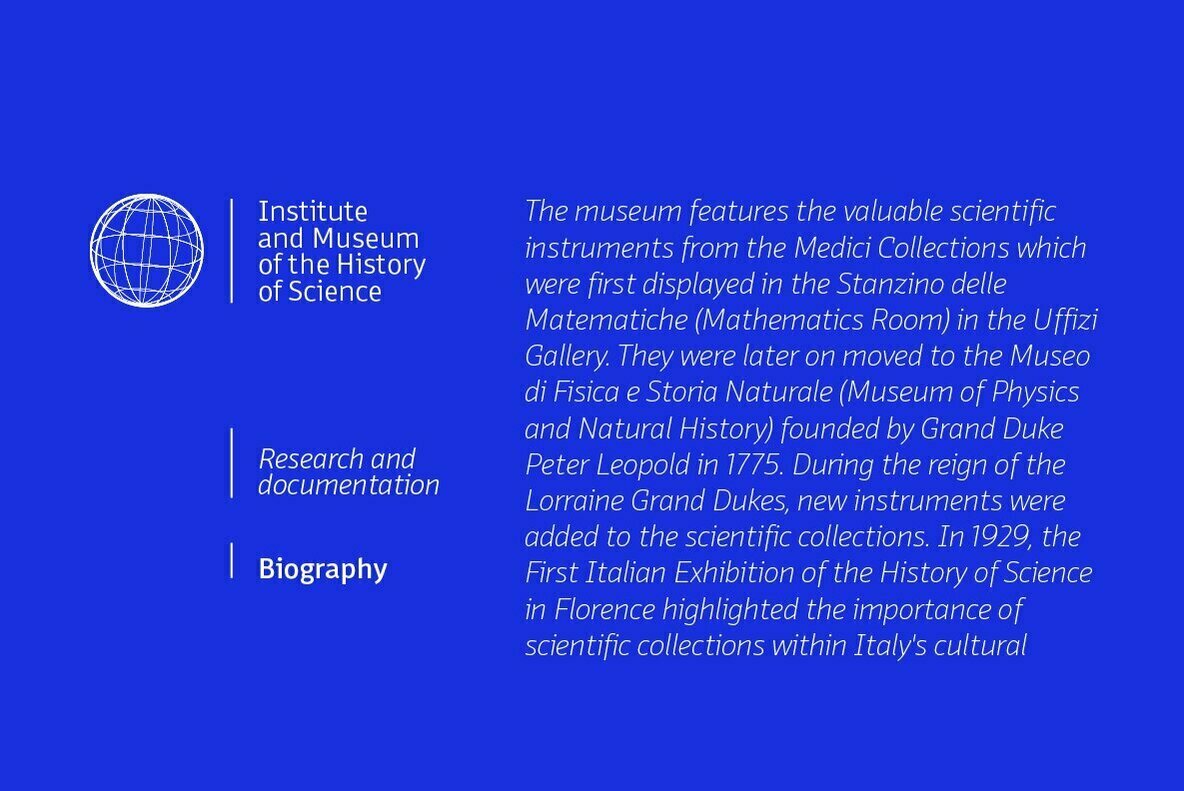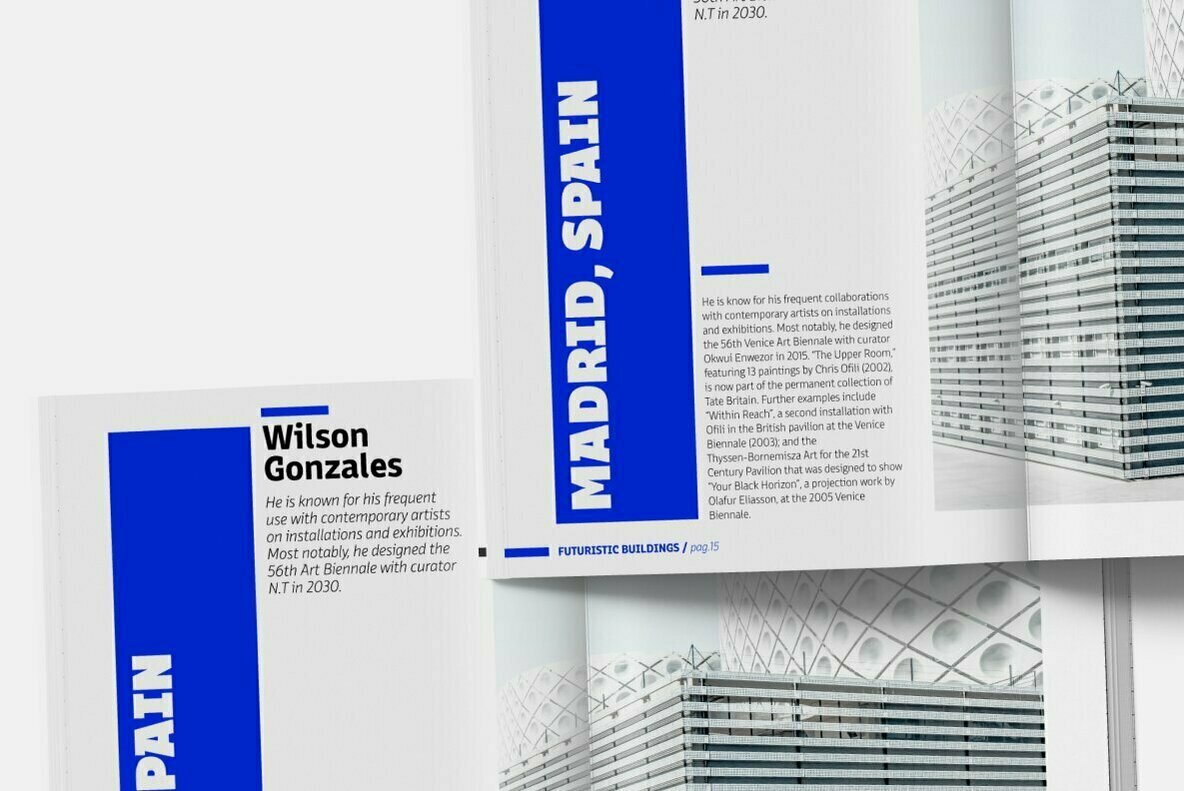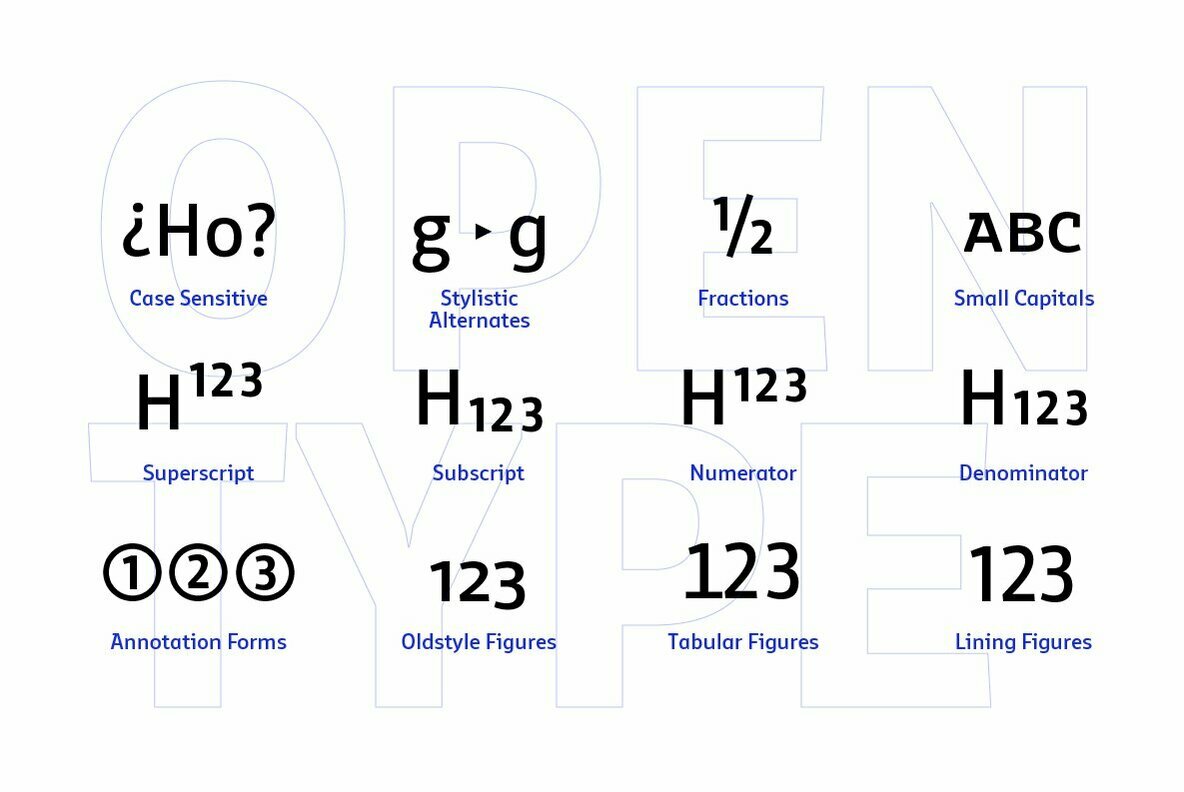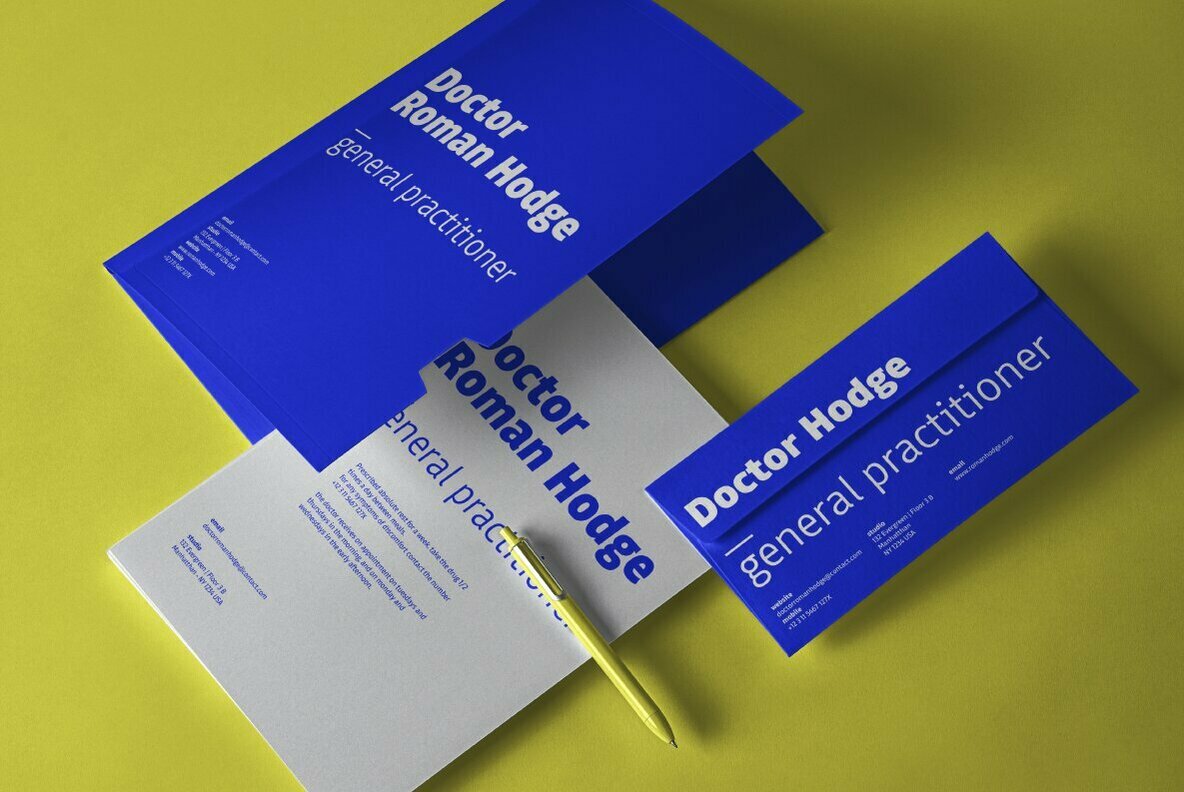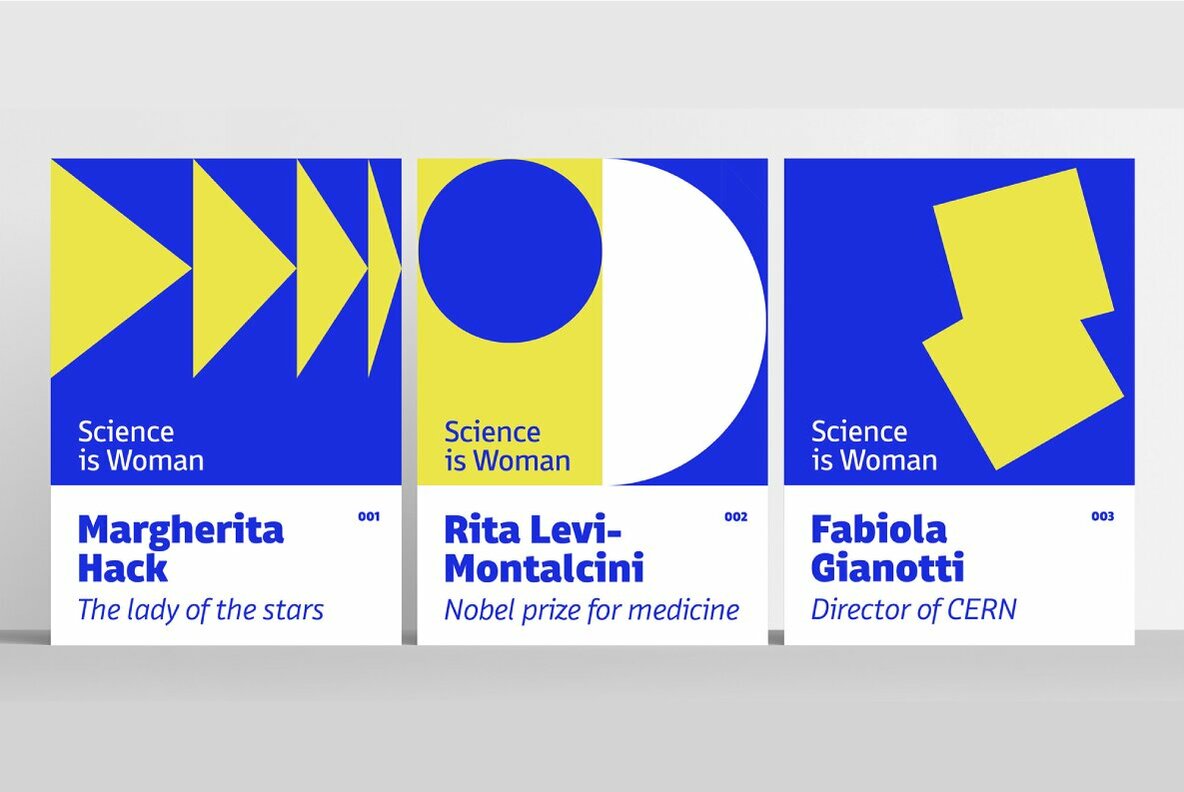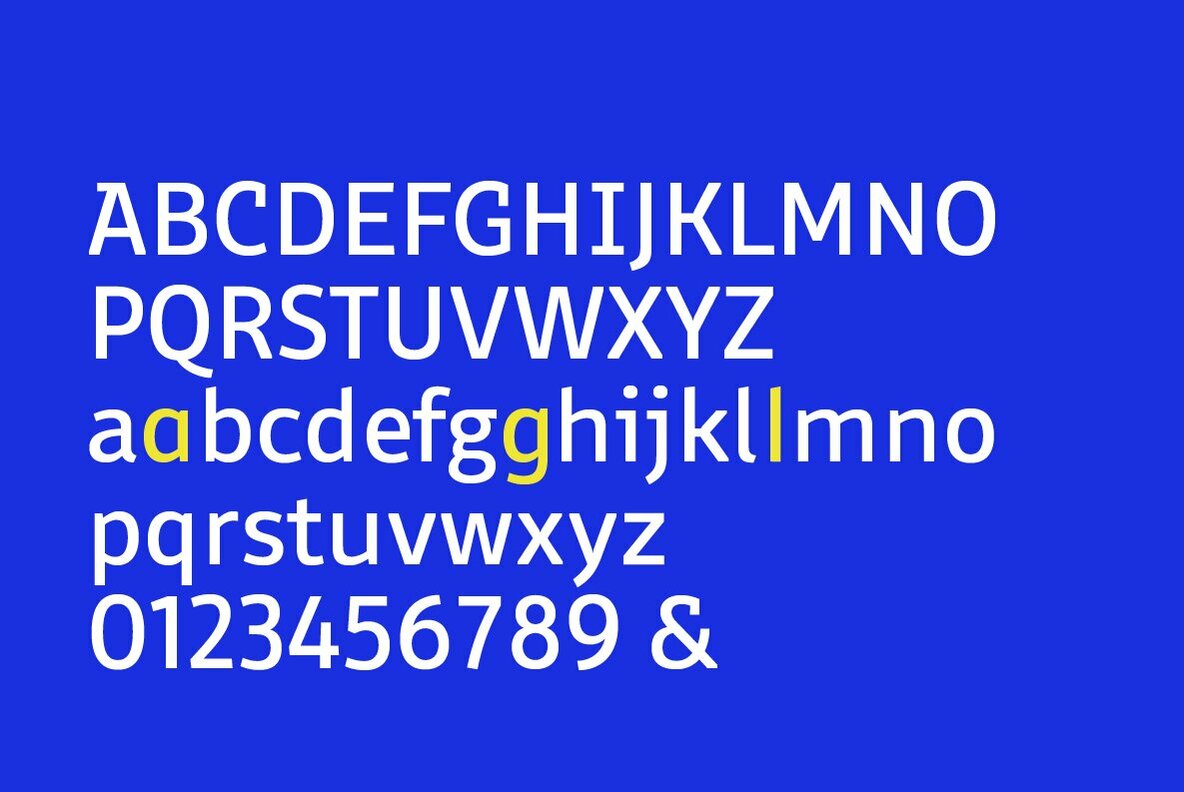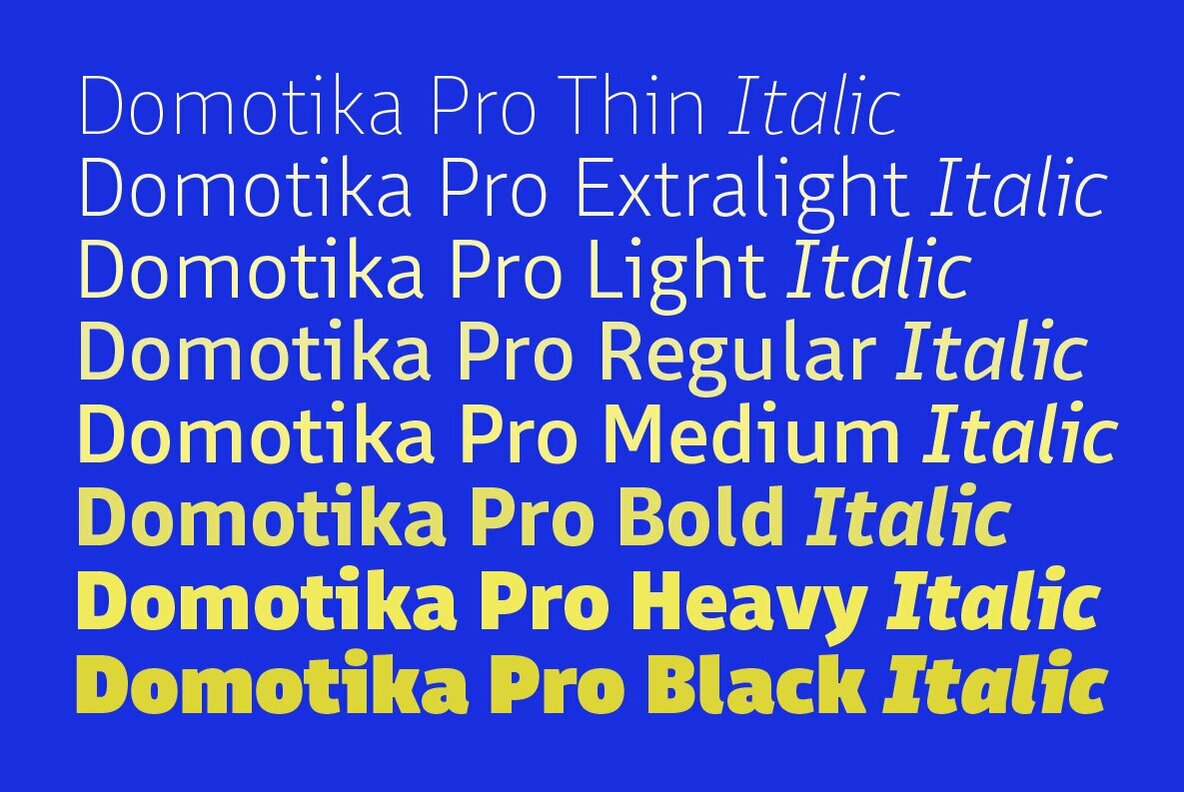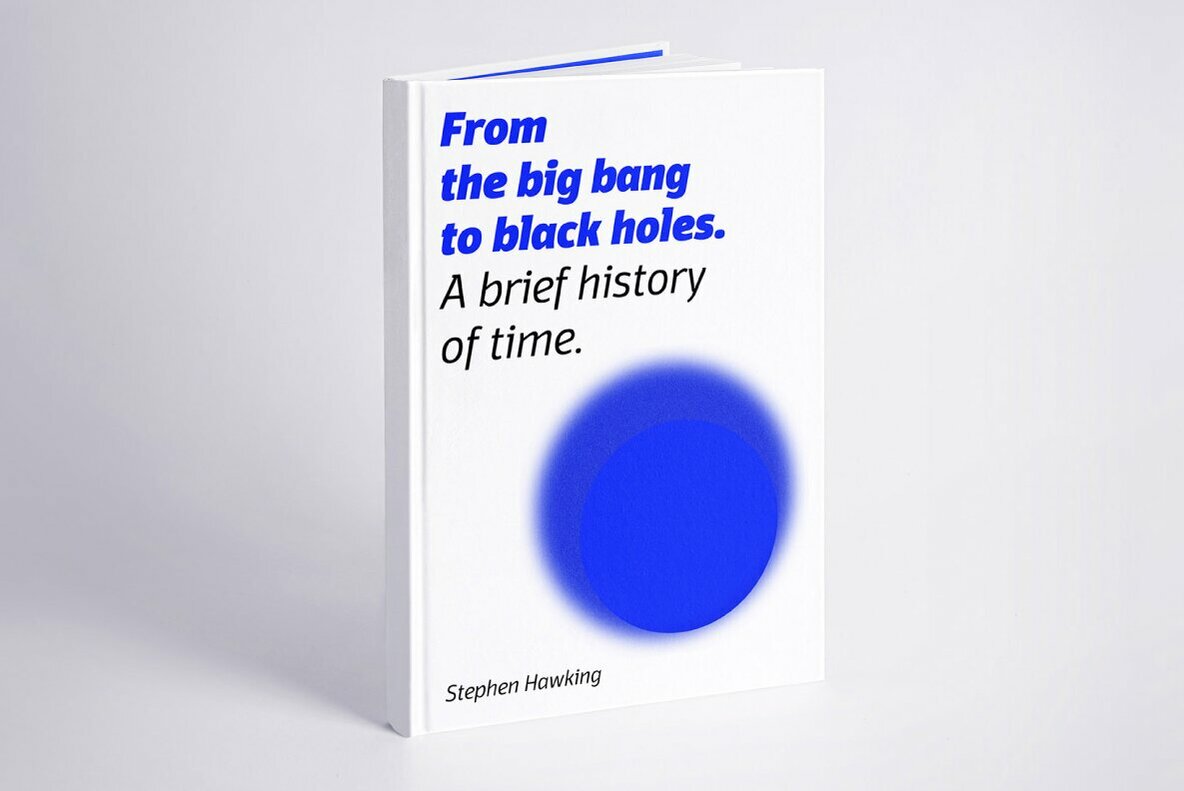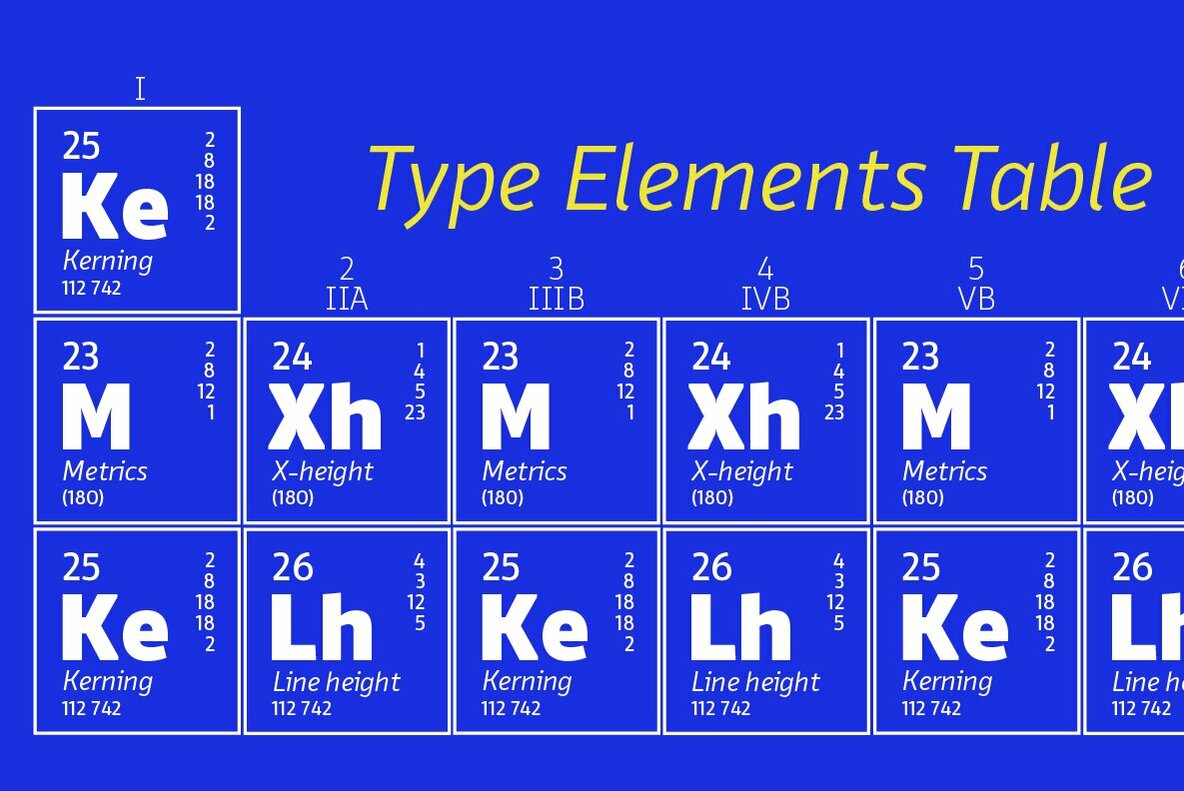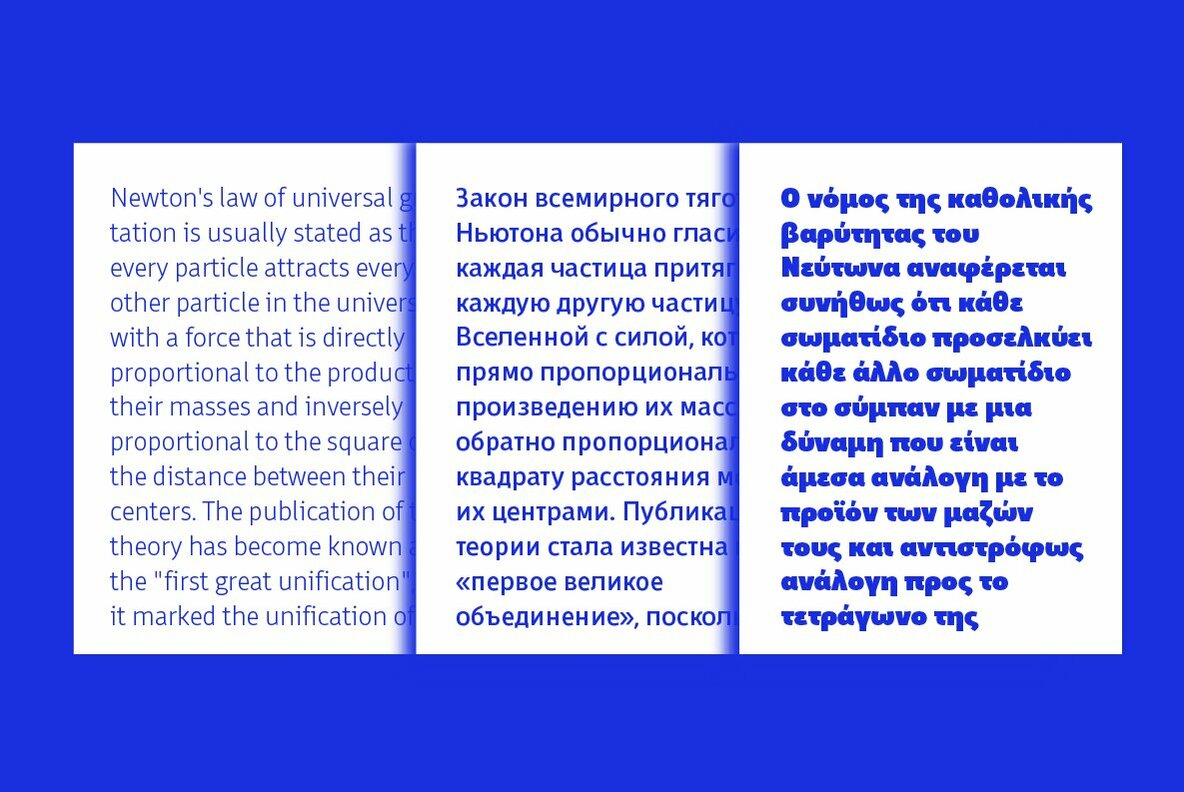
Domotika Pro Font
Domotika was first designed for Zetafonts by Cosimo Lorenzo Pancini in 2018, trying to translate the modernist and humanist ideals into typographic form, looking for a conversation between the classical and the contemporary, the hand-made and the technological. Following the motto of Mies Van Der Roe and Gustave Flaubert ("God is in the details"), Domotika takes inspiration from architectural practice, with a pragmatic attention to functionality that doesn't forget aesthetics. Its design juxtaposes the open humanist letterforms to slight calligraphic curve endings that marries perfect readability to expressive design. The name itself of the typeface is an homage to the science of living comfortably, with its reference to "domotics", robotic technology for use in the home.
In 2021 Andrea Tartarelli, who originally designed Domotika italics, completely reworked the original type family adding over five hundred glyphs to the original set and extending the language coverage to include over two hundred languages using latin, Cyrillic and greek alphabets. Open type features have been also expanded, including positional numbers, small caps, ligatures, contextual alternates and stylistic sets, as well as tabular, lining and old-style numerals.
• Suggested uses: conceived as a great tool for editorial use, great for display usage too, where readability and personality must match design space needs;
• 18 styles: 8 weights + 8 italics + 2 variable fonts;
• 1075 glyphs in each weight;
• Useful OpenType features: Access All Alternates, Small Capitals From Capitals, Contextual Alternates, Case-Sensitive Forms, Glyph Composition / Decomposition, Denominators, Fractions, Kerning, Lining Figures, Localized Forms, Mark Positioning, Mark to Mark Positioning, Alternate Annotation Forms, Numerators, Oldstyle Figures, Ordinals, Proportional Figures, Stylistic Alternates, Scientific Inferiors, Small Capitals, Stylistic Set 1, Subscript, Superscript, Tabular Figures, Slashed Zero;
• 219 languages supported (extended Latin, Cyrillic, Greek alphabets):